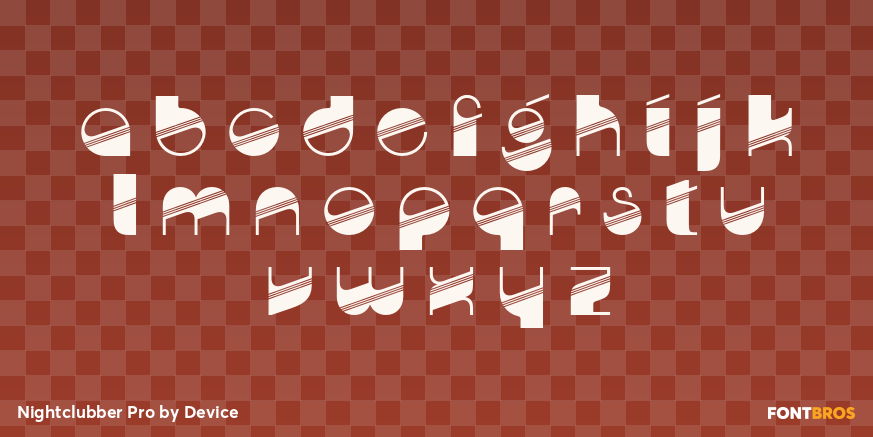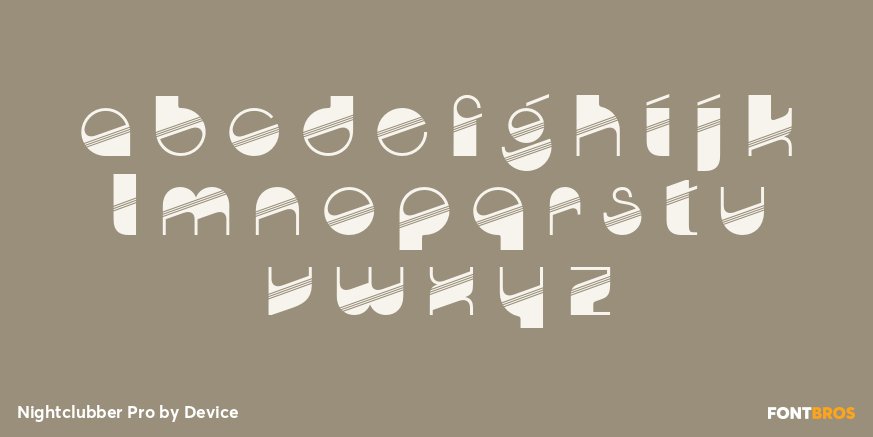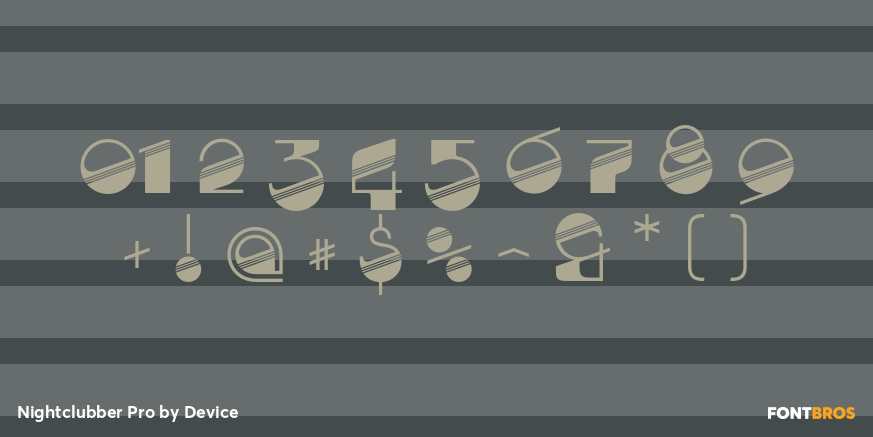
Nightclubber Pro
Buy NowThe late 70s and early 80s is sometimes considered to be the period when headline typography went off the rails.
Growing up in that period, some designers may beg to differ. Many geometric designs were available in dry-transfer and for the typositor, and were used everywhere a youth-culture look was appropriate - annuals, comics, club flyers, high-street boutiques, TV-advertised compila tion albums.
Nightclubber is a fond homage to the excesses of the period, and should be used back-lit in pink neon or at a rakish 45 degree slant across a blurred photograph of a glitter ball.